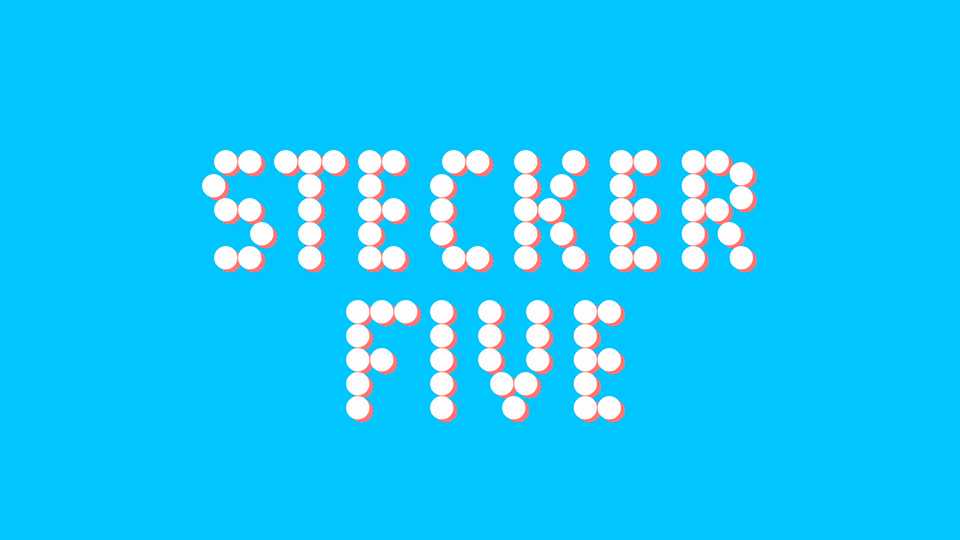
Download Stecker Five font, a display typeface made of round elements in two styles. Stecker Five font perfectly fits for posters, covers, graphic design and other artworks.
Designer: Jens Kutilek